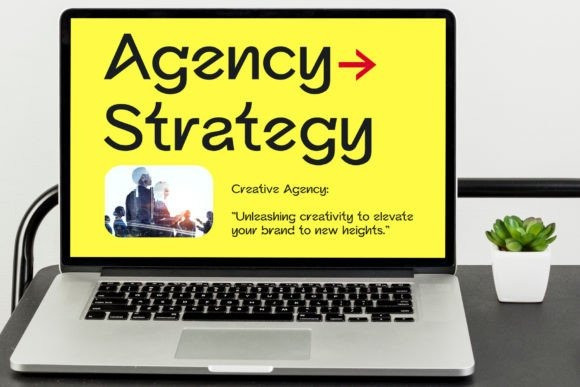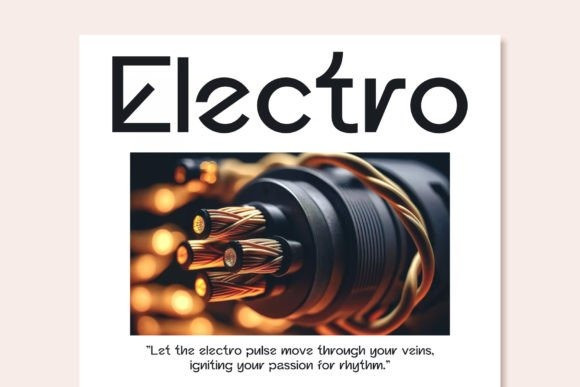
Ganky Font
Ganky Font is a stylish modern sans-serif font inspired by modern grotesque styles, featuring geometric details and rooted in industrial design principles.
Ganky is the perfect choice for any creative project, adding a chic and sophisticated touch to logos, advertisements, watermarks on photography, stationery, branding projects, displays, magazines, invitations, corporate branding, product designs, labels, business projects, and much more.